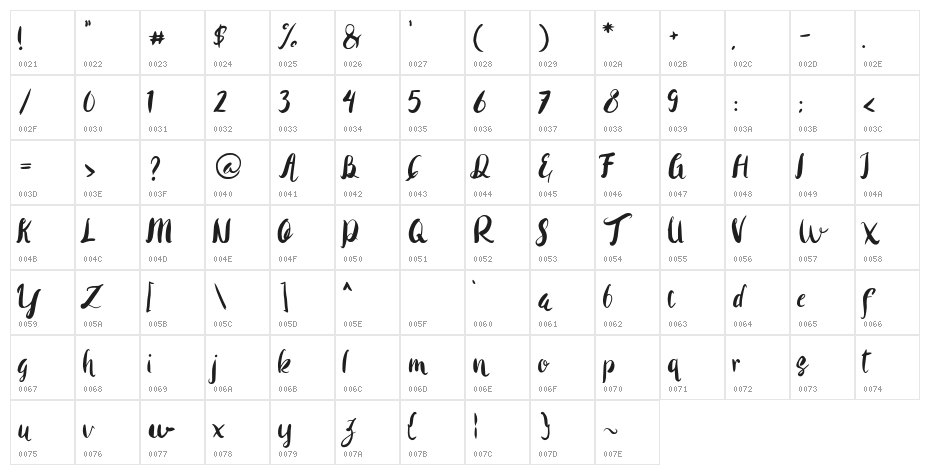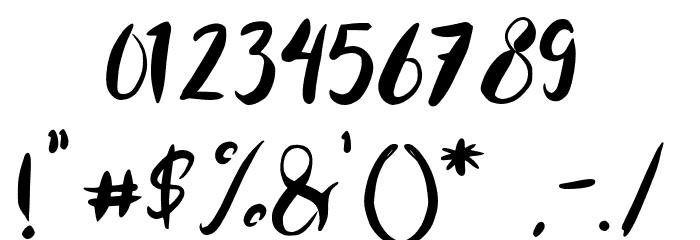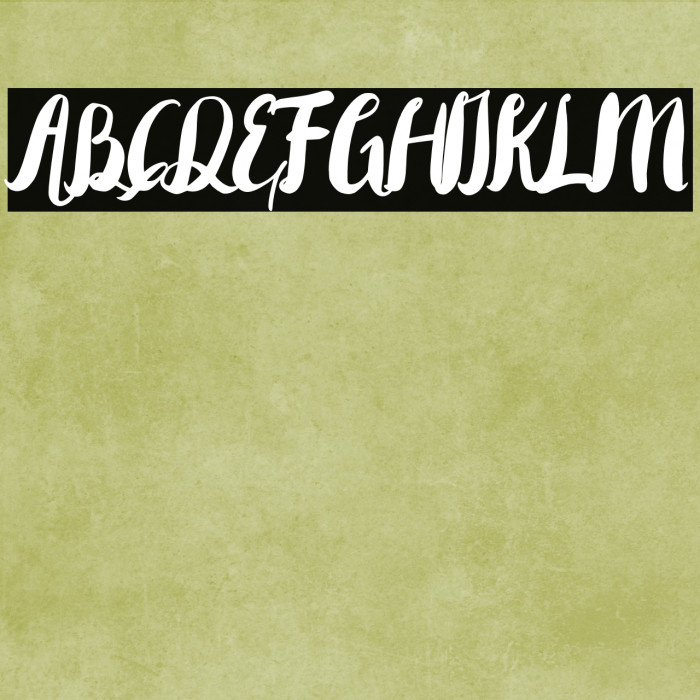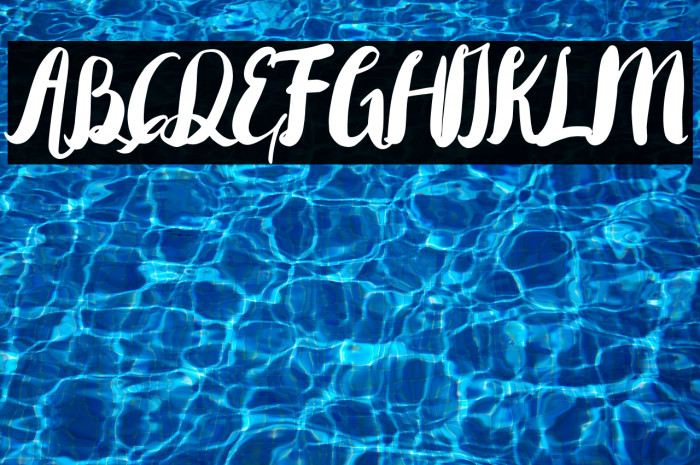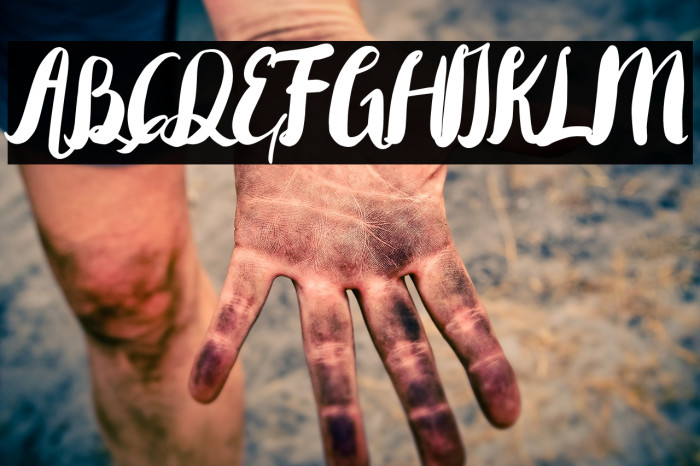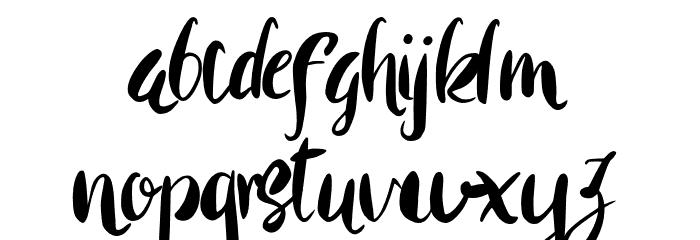
Rohman Font
Rohman Description
This font features a bold, expressive script style with a handwritten appearance. The letters are fluid and dynamic, with varying stroke widths that add a sense of movement and energy. The uppercase characters are particularly striking, with dramatic flourishes and loops that give them a distinctive personality. The lowercase letters maintain a consistent style, complementing the uppercase with their own elegant curves. Numbers and special characters are designed to match the overall aesthetic, ensuring a cohesive look across all text. This font is ideal for projects that require a personal touch, such as invitations, greeting cards, or branding materials.